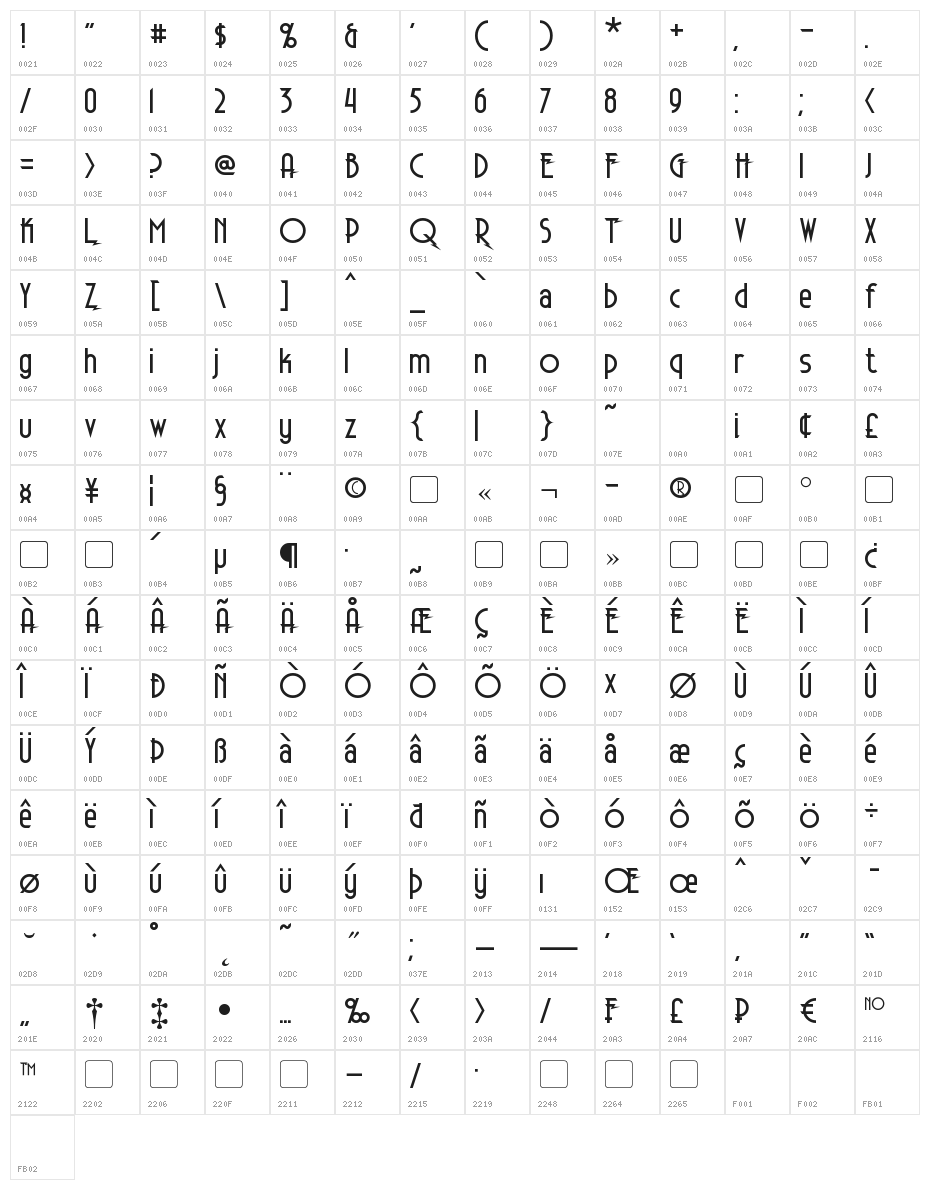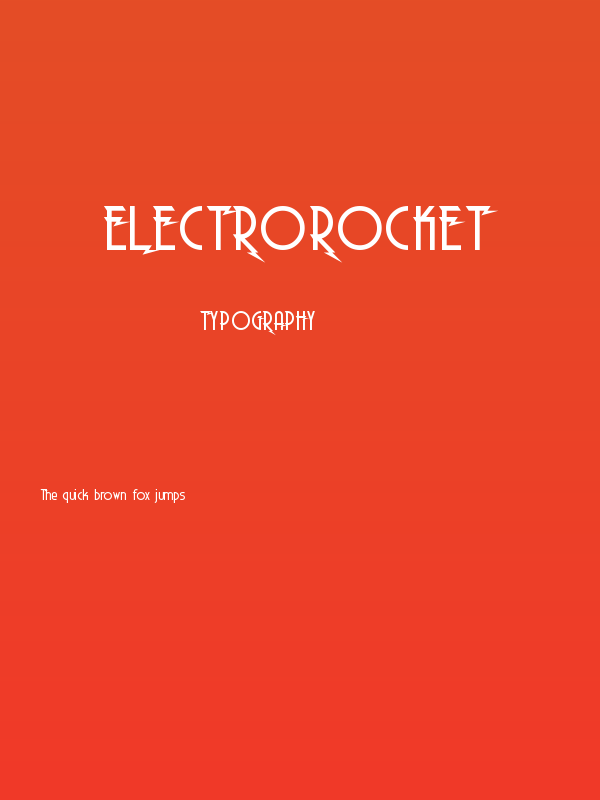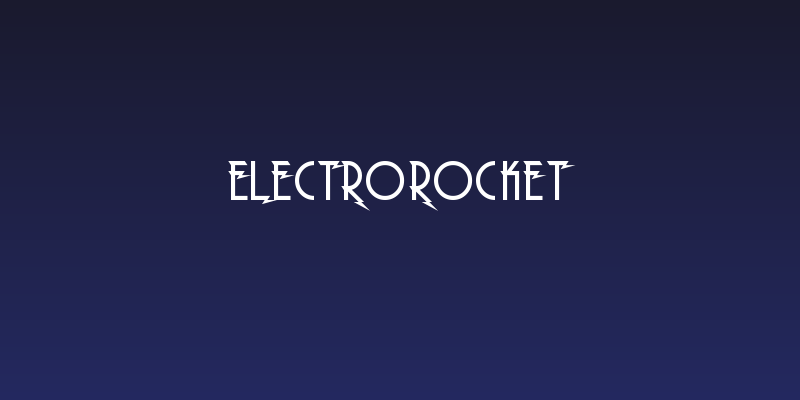
Electrorocket Font
Electrorocket Description
This font features a dynamic and electrifying design, characterized by sharp angles and lightning bolt motifs integrated into the letterforms. The uppercase letters exhibit a bold and striking appearance, with unique zigzag elements that suggest movement and energy. The lowercase letters maintain a more streamlined look, yet still carry the distinctive angular style. Numerals are consistent with the overall theme, offering a cohesive visual experience. The special characters are creatively designed, complementing the font's energetic aesthetic. This font is ideal for projects that require a bold and impactful statement.